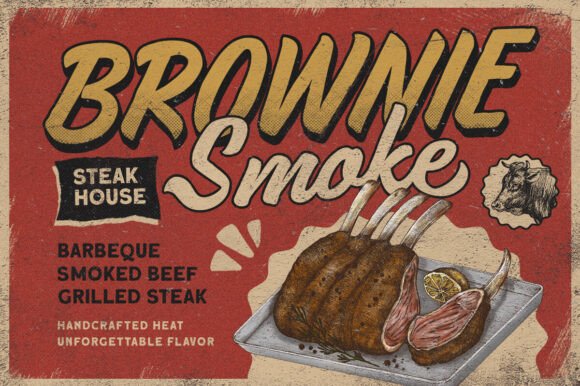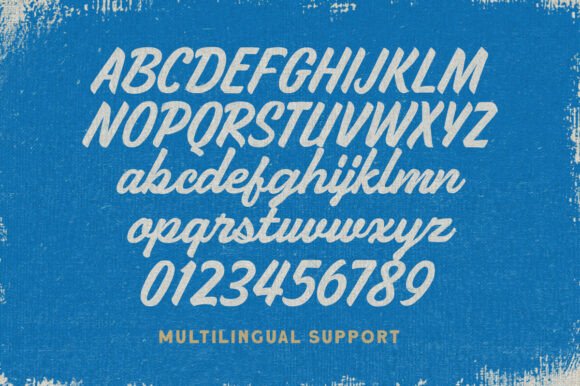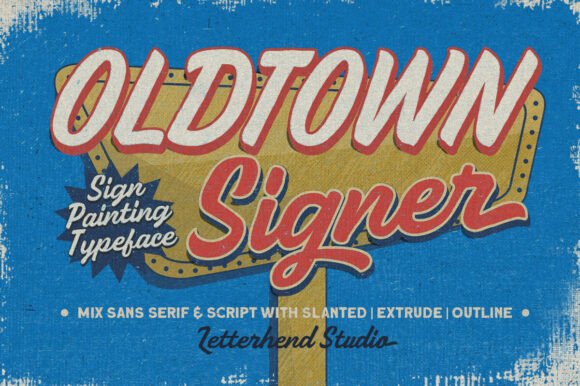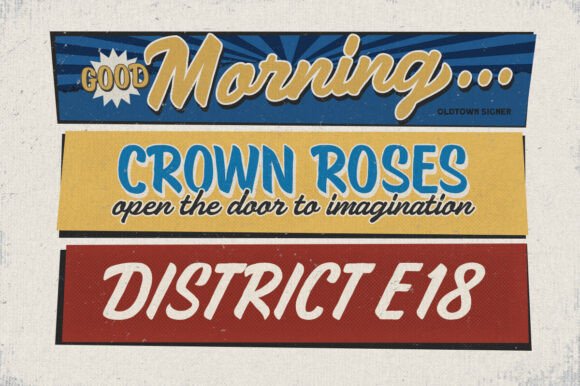
Oldtown Signer Font
About the Oldtown Signer Font
Crafted with precision, the Oldtown Signer Font is ready to bring your ideas to life. Oldtown Signer is a sign painting typeface handcrafted that will bring you back to the 60s feel. The swashes make this font look great for retro lettering which you can create in a sec! This font is perfectly made to be applied especially in logos, and other various formal forms such as invitations, labels, logos, magazines, books, greeting/wedding cards, packaging, fashion, makeup, stationery, novels, labels, or any type of advertising purpose.
Oldtown Signer’s strong, swashed characters are ideal for headlines, logos, and short, impactful text on posters or packaging. Its retro charm works well for brands aiming for a vintage or nostalgic feel, particularly in the fashion, beauty, and food industries. Avoid using it for body text or long paragraphs; its decorative nature makes it less legible at smaller sizes.
Consider pairing Oldtown Signer with a clean sans-serif like Futura or a more modern geometric sans-serif for a balanced contrast. For a warmer feel, a classic serif like Garamond could complement its vintage vibe. Avoid pairing it with other highly decorative fonts, which would create visual clutter.
The font projects a bold, confident, and slightly playful personality, making it suitable for brands seeking a retro-inspired aesthetic with a touch of vintage flair.
Oldtown Signer Font Usage Examples
Oldtown Signer Font Example